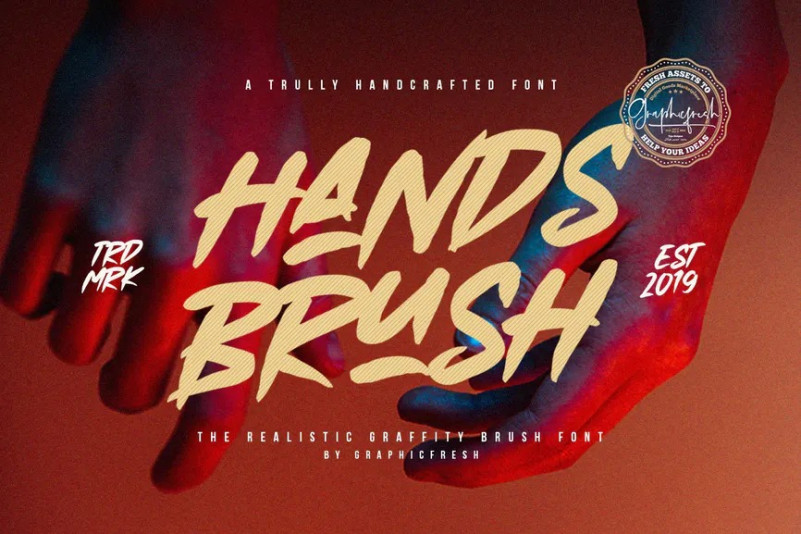
Hands Font
Hands Brush! A beautiful collection of hand-lettered modern calligraphy brush fonts. Hands Brush is guaranteed to deliver an unapologetically loud & fast-paced message; ideal for logos, apparel, quotes, product packaging, or anything which needs a typographic turbo-boost.